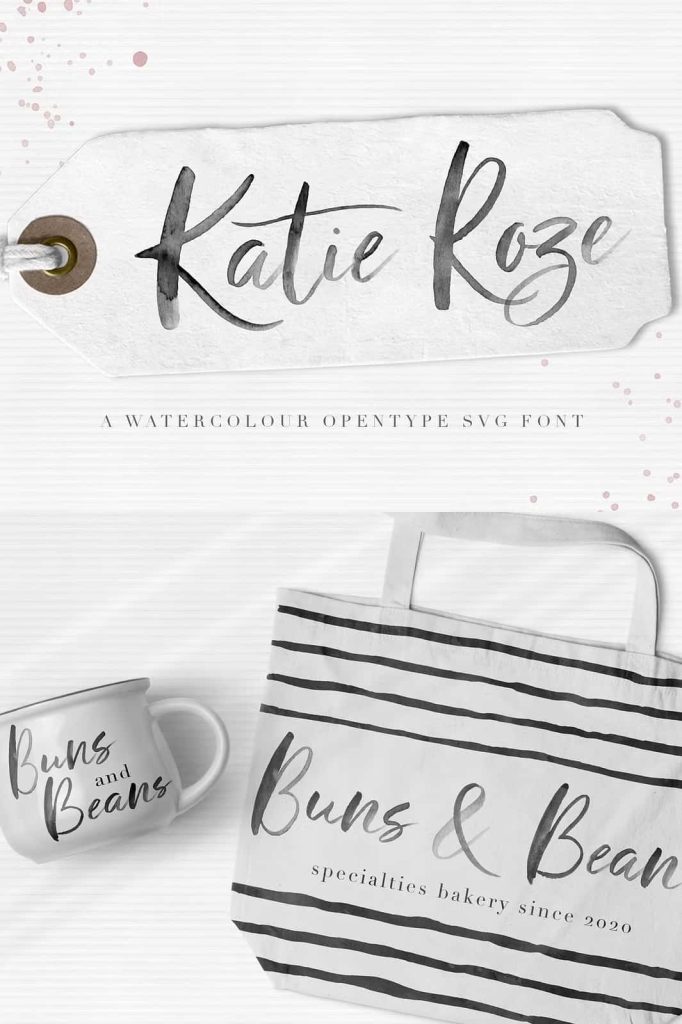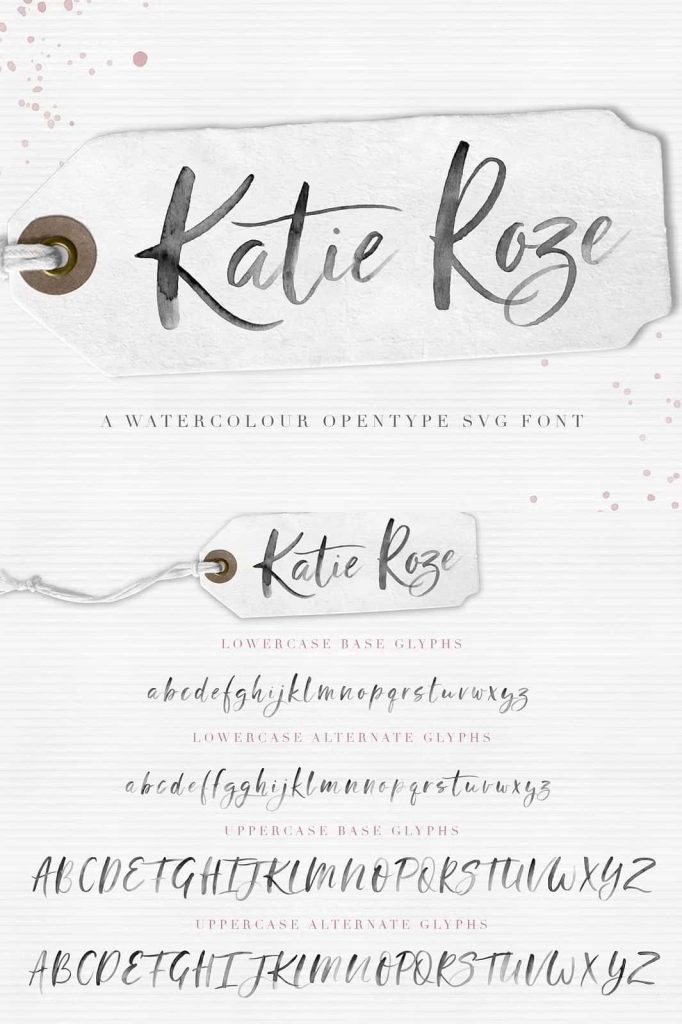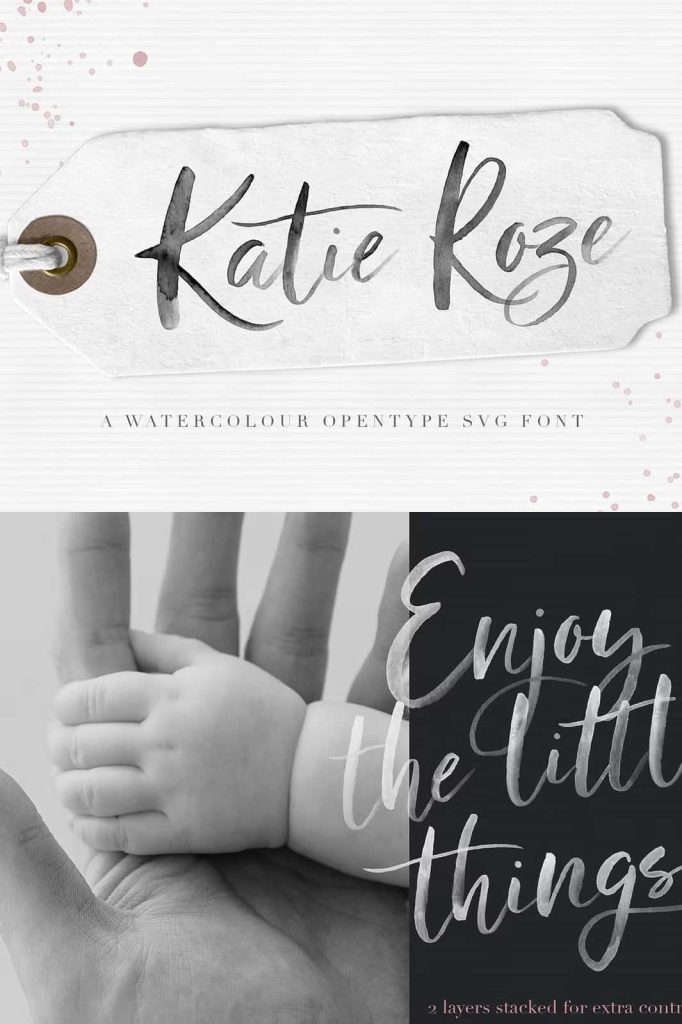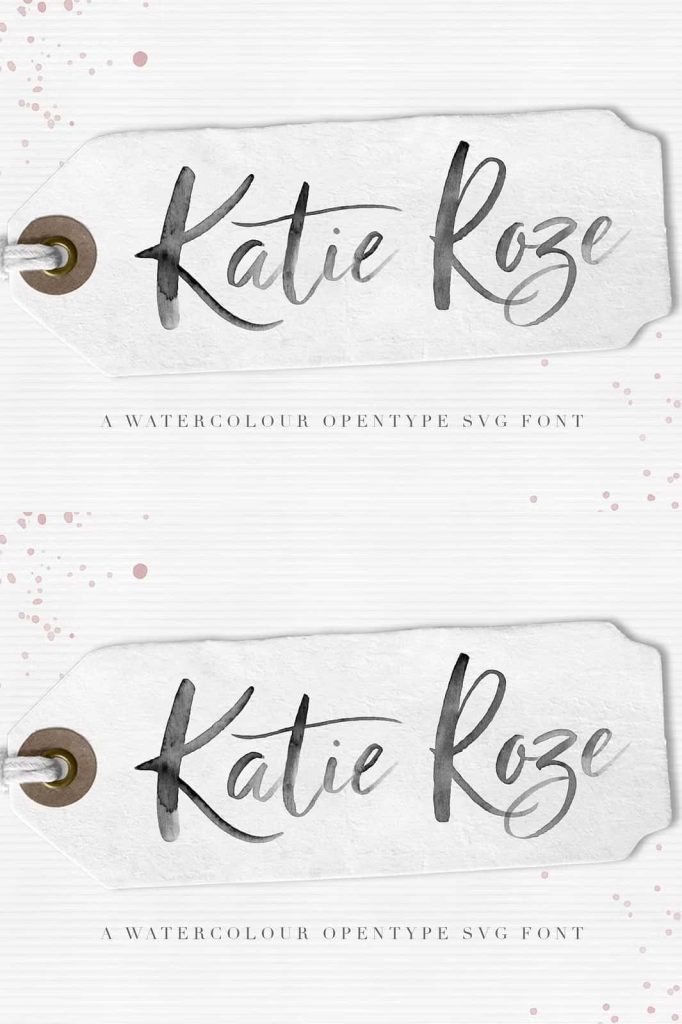
Katie Roze Watercolor Font for Elegant and Flowy Designs
Katie Roze is a beautifully crafted watercolor font that brings elegance, softness, and artistic flow into your creative work. Designed with a natural hand-painted style, this typeface captures the charm of watercolor brush strokes while maintaining clarity and usability. Whether you want to design eye-catching headers or create expressive social media content, Katie Roze gives you the freedom to add a graceful and personal touch.
Express Creativity with a Flowy Watercolor Style
Katie Roze stands out through its fluid and organic letterforms. Each character reflects the movement of a brush, creating a sense of motion and authenticity that digital fonts often lack. This natural flow makes your designs feel more human, artistic, and visually engaging.
You can use this font to soften rigid layouts and introduce a more relaxed, elegant atmosphere. Its watercolor texture adds depth and personality, helping your work stand out in a crowded visual space.
Designed for Artistic Impact
Every detail in Katie Roze has been carefully refined to balance beauty and readability. The strokes remain expressive without becoming overwhelming, allowing you to create designs that look artistic while still delivering clear messages. This balance makes the font suitable for both decorative and functional use.
The flowing structure also allows you to create seamless connections between letters, enhancing the overall aesthetic and giving your text a cohesive, handcrafted appearance.
Perfect for Headers and Titles
Katie Roze excels when used for headers and titles. Its bold yet elegant presence draws attention immediately, making it ideal for blog titles, website headers, and promotional graphics. The font helps you establish a strong visual hierarchy while maintaining a soft and inviting tone.
You can pair it with simple sans-serif or serif fonts to create contrast and improve readability. This combination ensures that your layouts remain balanced and visually appealing.
Create Unique and Memorable Logos
If you want to design logos that feel personal and distinctive, Katie Roze provides an excellent foundation. Its hand-painted style adds character and originality, helping your brand stand out from generic typography.
This font works particularly well for creative businesses, boutiques, beauty brands, and lifestyle products. The elegant curves and flowing strokes communicate sophistication while maintaining a friendly and approachable feel.
Enhance Social Media Content
In the fast-paced world of social media, strong visuals are essential. Katie Roze allows you to create posts that capture attention and encourage engagement. Its watercolor style adds a unique artistic element that makes your content more shareable and memorable.
Use it for quotes, promotional graphics, announcements, and stories to build a consistent and visually appealing brand presence across platforms.
Versatile for Creative Projects
Katie Roze adapts easily to a wide range of creative applications. From invitations and greeting cards to packaging and digital designs, this font maintains its elegance and charm across different formats. Its flexibility makes it a valuable addition to any designer’s toolkit.
You can experiment with colors, textures, and layouts to create unique compositions that reflect your personal style or brand identity. The watercolor effect enhances every design, adding depth and visual interest.
Key Features of Katie Roze Font
- Elegant watercolor font with a natural hand-painted style
- Flowy and organic letterforms for artistic expression
- Ideal for headers, logos, and social media graphics
- Maintains readability while delivering visual impact
- Suitable for both print and digital creative projects
Elevate Your Design with Katie Roze
Katie Roze gives you the tools to create designs that feel elegant, expressive, and visually captivating. Its combination of watercolor texture and flowing structure allows you to explore creative ideas while maintaining a polished and professional result.
If you want to add a soft, artistic touch to your work, Katie Roze is the perfect choice. Use it to design compelling visuals, build a unique brand identity, and create content that resonates with your audience.